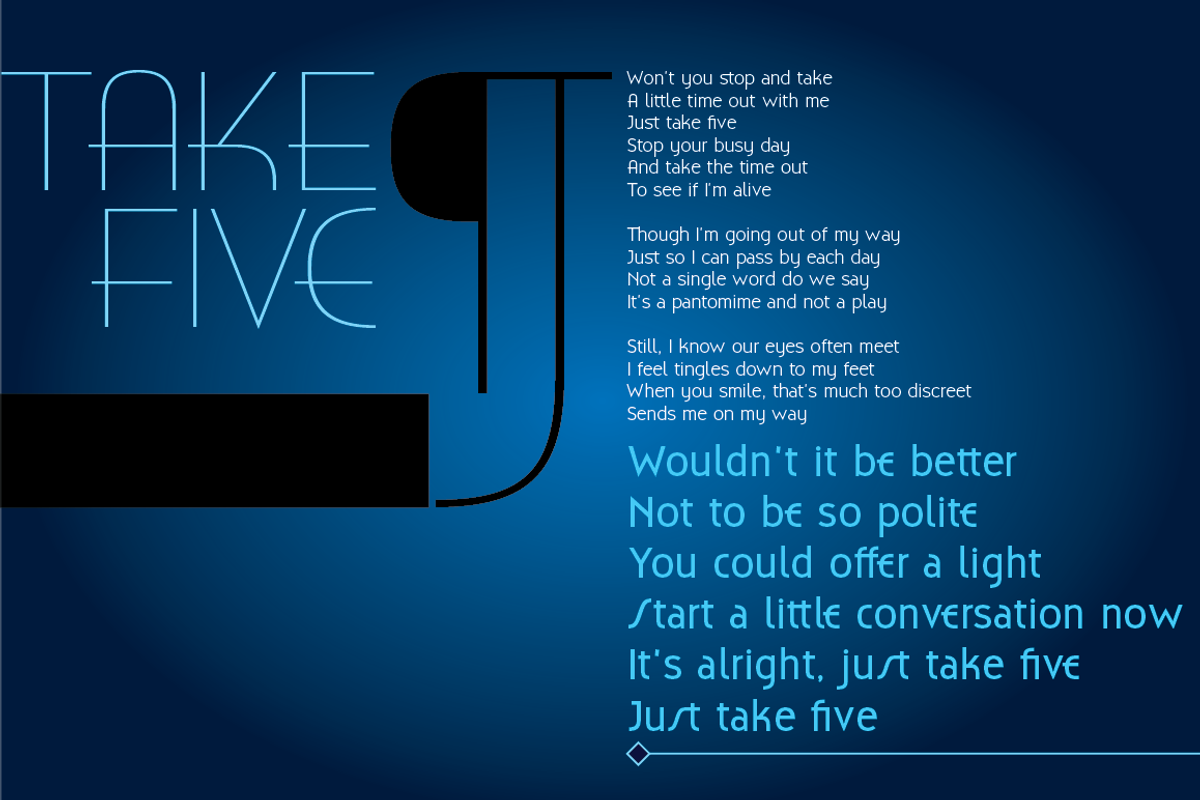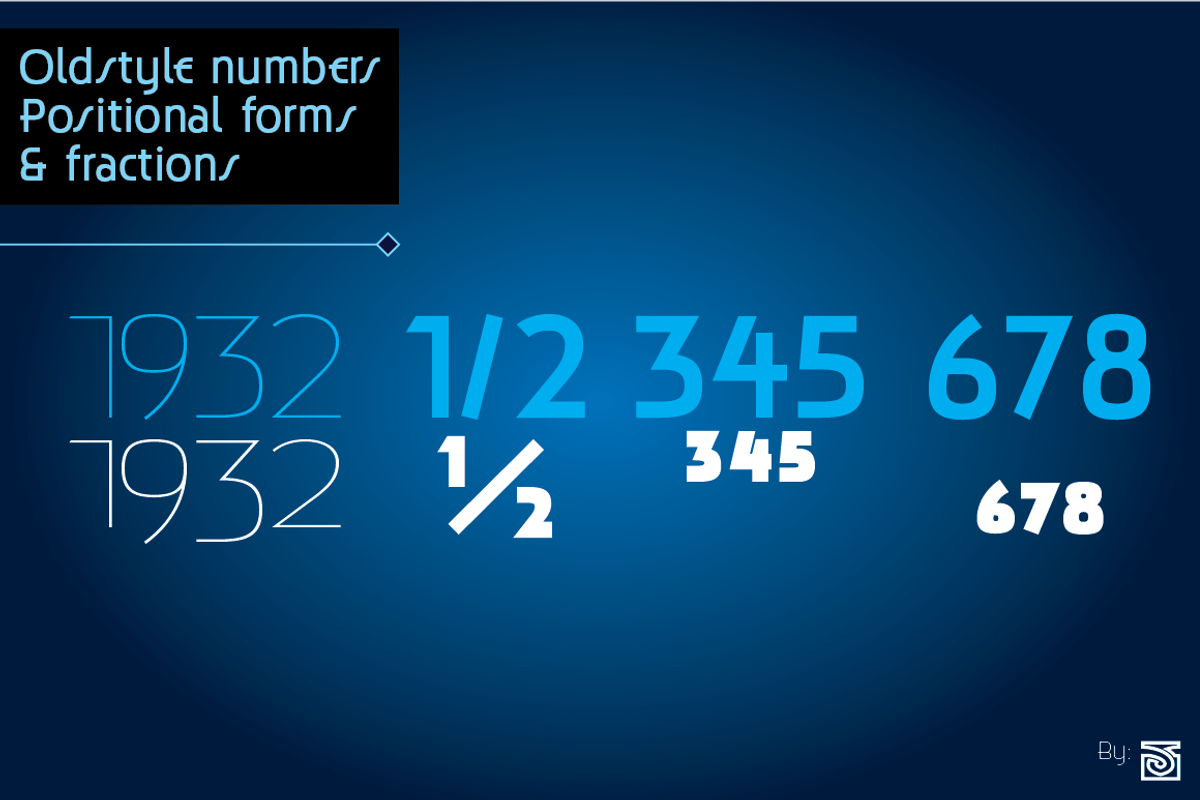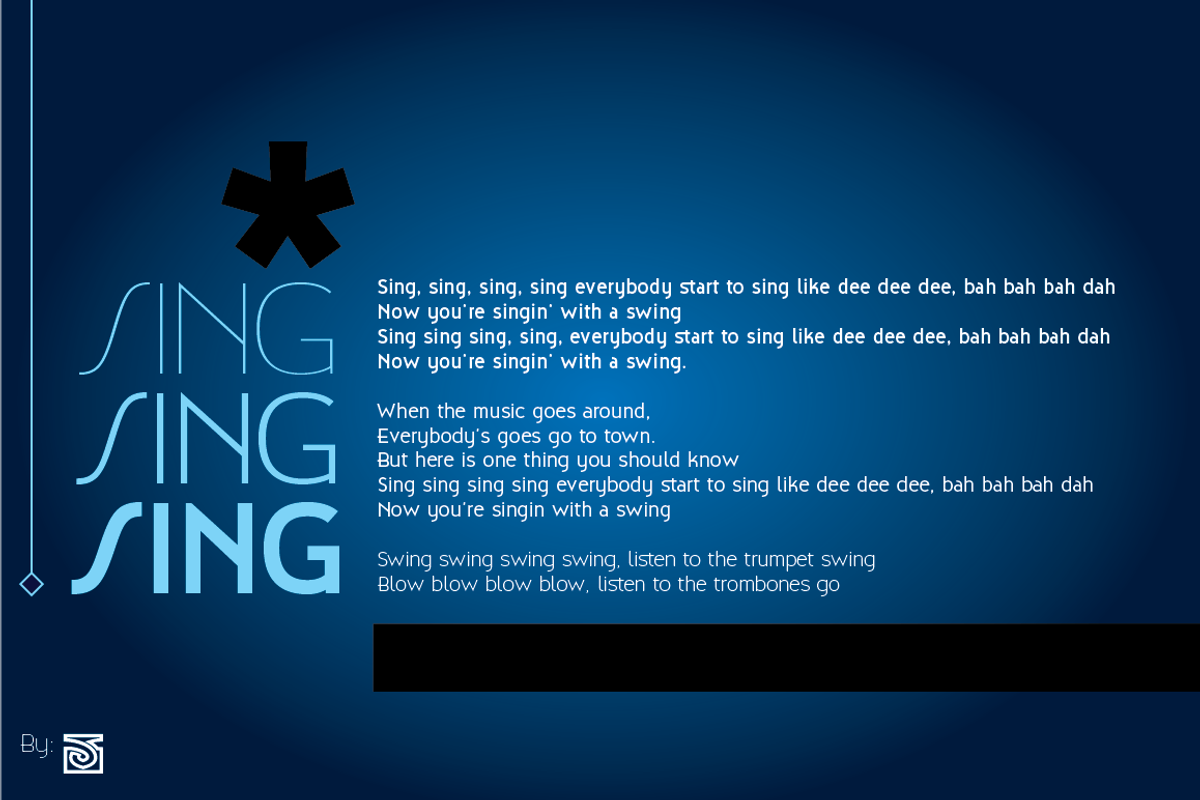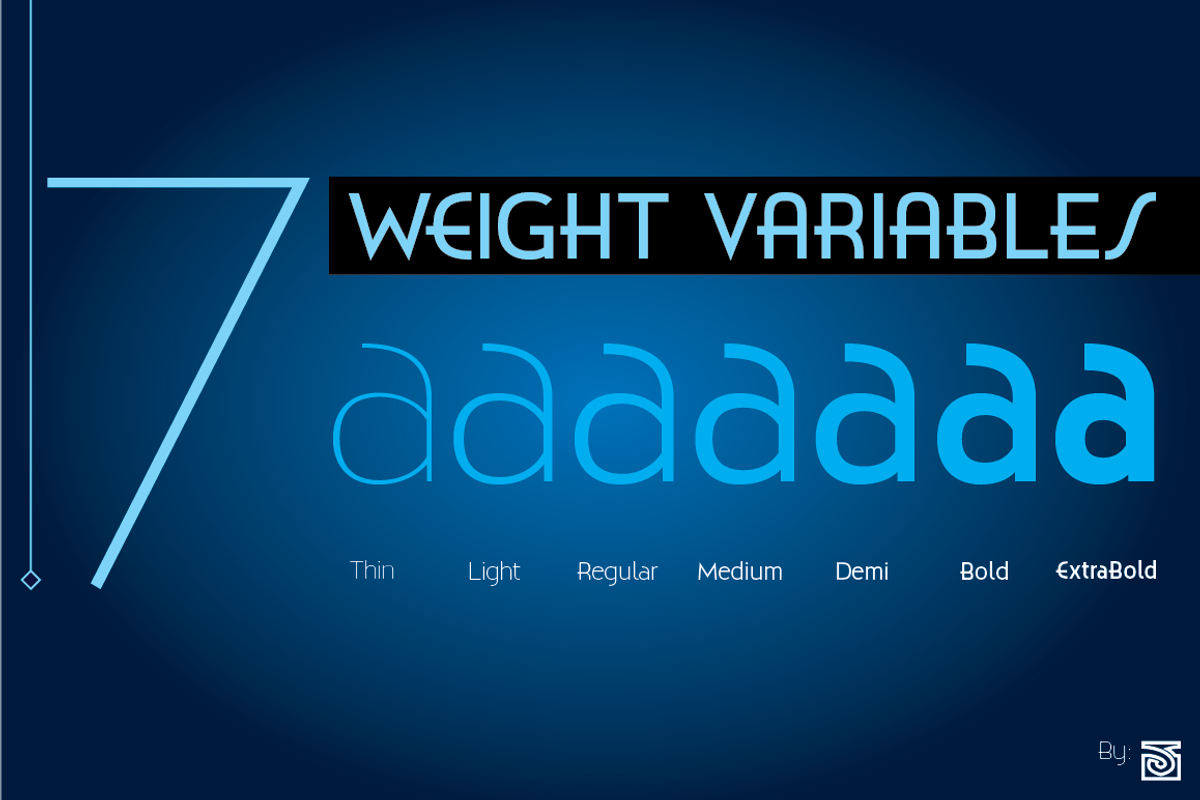
Biscayne Font Family
Biscayne Font Family by JVB Digital Foundry is a font selected for branding, posters, packaging, typography.
- It also includes standard and discretionary ligatures, alternative style of uppercase, fractions, numerators and denominators, end and/or te
Why Biscayne Font Family is worth a look
Biscayne Font Family by JVB Digital Foundry fits naturally into Branding, posters, packaging, typography.